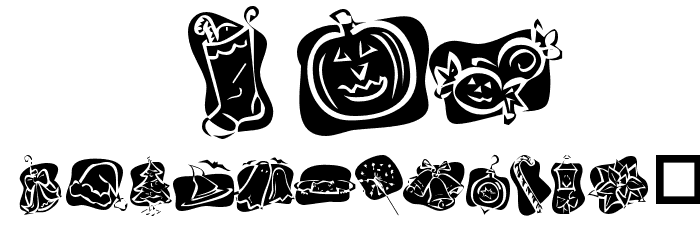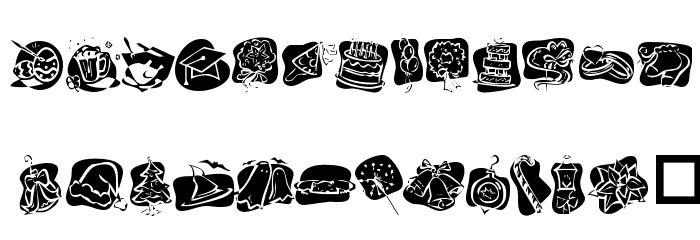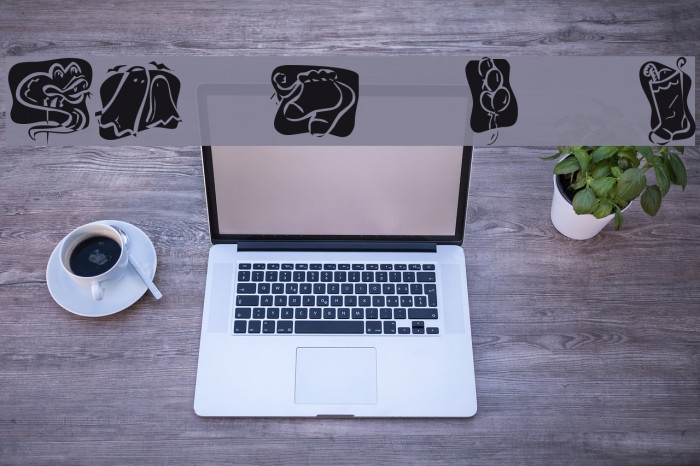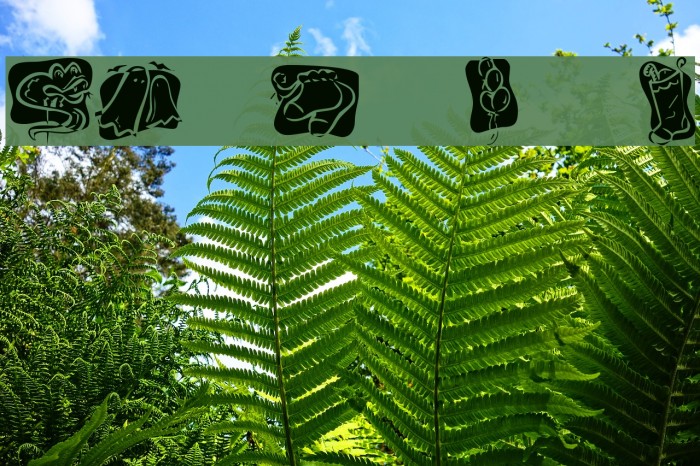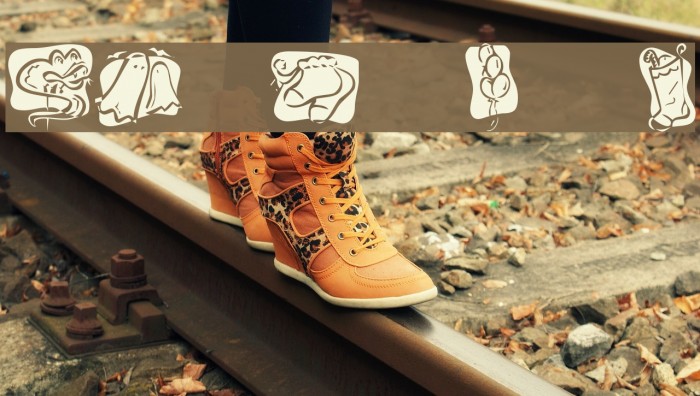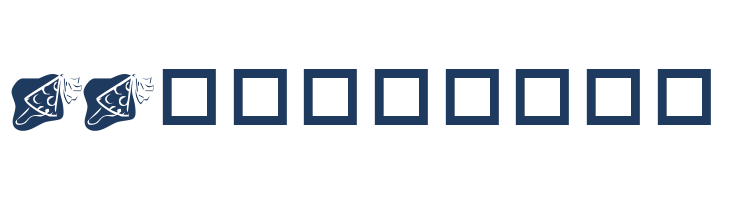
KR More Holidays Font
This is a decorative font featuring a variety of holiday-themed icons. Each character is represented by a unique illustration, including festive elements such as gifts, cakes, trees, and other celebratory symbols. The style is playful and whimsical, making it ideal for projects that require a fun and festive touch. The icons are bold and easily recognizable, with a consistent black and white color scheme that enhances their visual impact. This font is perfect for adding a holiday spirit to any design.
A decorative font with playful holiday-themed icons.
- Proposed Projects: Ideal for holiday greeting cards, festive event invitations, seasonal marketing materials, and decorative posters.
- Use Case: Logos, Headlines, Decorative elements